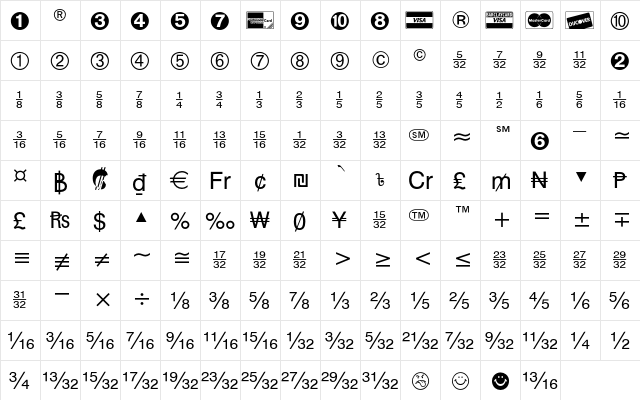
Currency Pi Regular
Design Context for Currency Pi Typeface
Currency Pi takes a measured approach to typography — its balanced proportions and neutral character make it a reliable workhorse for both digital and print work.